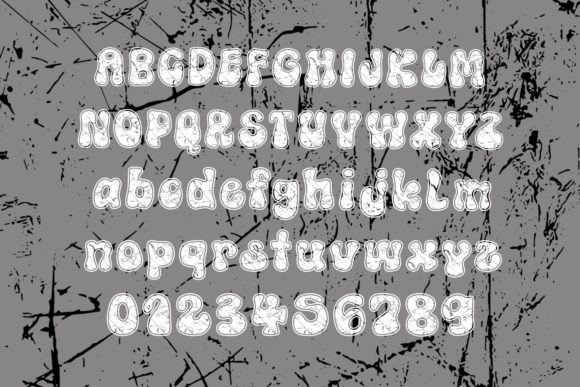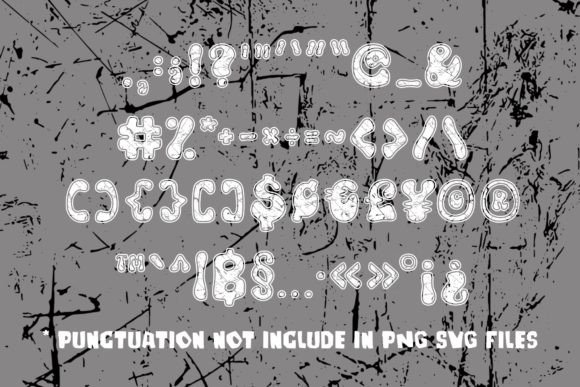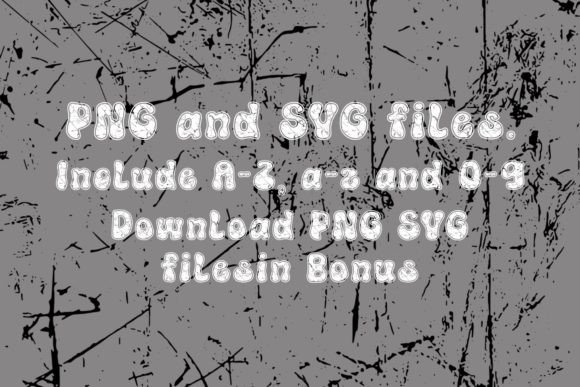
Discover the Edgy Charm of Chunky Grunge Font: Elevate Your Designs with a Vintage Twist
In the world of typography, fonts play a crucial role in conveying the tone and aesthetic of a brand or project. For designers and crafters looking to add a touch of nostalgia and ruggedness to their work, the Chunky Grunge Font is an excellent choice. This vintage and grunge font is designed to bring a unique, distressed look to various applications, including logos, branding, social media graphics, and DIY projects.
What is Chunky Grunge Font?
Chunky Grunge Font is a carefully crafted typeface that embodies the essence of the grunge movement, with its roots in the 1990s music scene. Characterized by its bold, irregular, and worn appearance, this font is perfect for those seeking to infuse their designs with a sense of rebellion and nonconformity. The chunky texture and uneven lines of the font give it a handcrafted feel, reminiscent of handmade posters and flyers from the grunge era.
Key Features of Chunky Grunge Font
• Vintage Appeal: The font’s distressed look and feel evoke a sense of nostalgia, making it ideal for projects that require a retro or vintage vibe.
• Chunky Texture: The bold, chunky texture of the font adds depth and visual interest to any design, making it stand out.
• Grunge Aesthetic: The irregularities and imperfections in the font’s design capture the raw, unpolished spirit of the grunge movement.
• Versatility: Chunky Grunge Font can be used across various platforms and applications, from digital graphics to print materials.
Use Cases for Chunky Grunge Font
The versatility of Chunky Grunge Font makes it suitable for a wide range of projects. Here are some ideas to get you started:
• Logos and Branding: Create a memorable brand identity with a logo that stands out. The font’s unique appearance can help your brand differentiate itself in a crowded market.
• Social Media Graphics: Elevate your social media presence with eye-catching graphics that incorporate the Chunky Grunge Font. It’s perfect for creating engaging posts, stories, and ads.
• DIY Projects: Add a personal touch to your crafty DIY projects, such as handmade cards, posters, and signs. The font’s handcrafted feel fits perfectly with the DIY aesthetic.
• Merchandise: Design unique merchandise, like t-shirts, stickers, and tote bags, with the Chunky Grunge Font. Its bold appearance ensures your designs will be noticed.
Tips for Using Chunky Grunge Font Effectively
To make the most of Chunky Grunge Font, consider the following tips:
• Pair with Simpler Fonts: For better readability, pair the Chunky Grunge Font with simpler, cleaner fonts for headings and body text.
• Experiment with Colors: The font looks great in bold, vibrant colors, but don’t be afraid to experiment with different color schemes to match your brand or project’s aesthetic.
• Utilize Texture and Patterns: Enhance the grunge effect by incorporating textures and patterns that complement the font’s distressed look.
Chunky Grunge Font is a powerful tool for designers and crafters looking to add a vintage, grunge touch to their work. Its unique blend of boldness, texture, and nostalgia makes it an excellent choice for a variety of projects. By incorporating this font into your designs, you can create visually striking and memorable pieces that stand out in a crowded digital landscape. So, why not give Chunky Grunge Font a try and see how it can elevate your designs with its edgy charm?